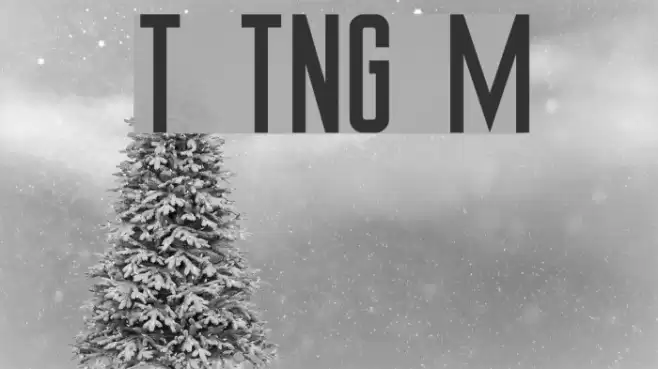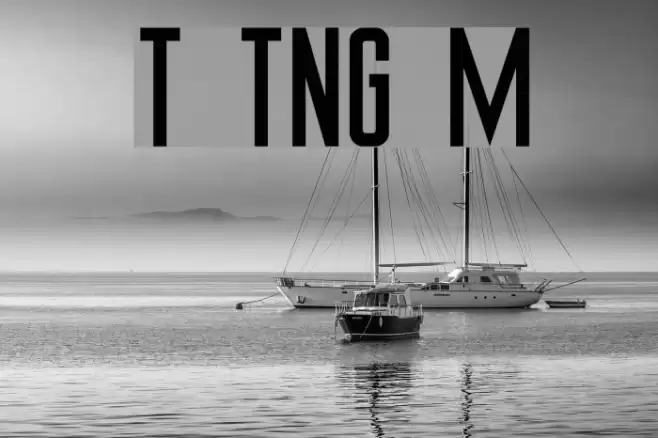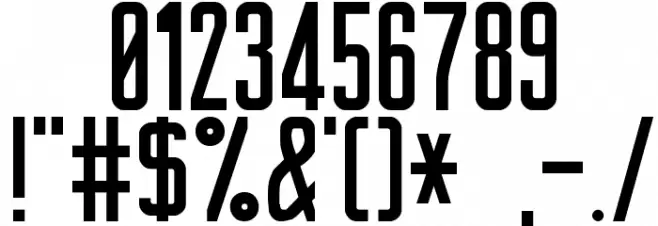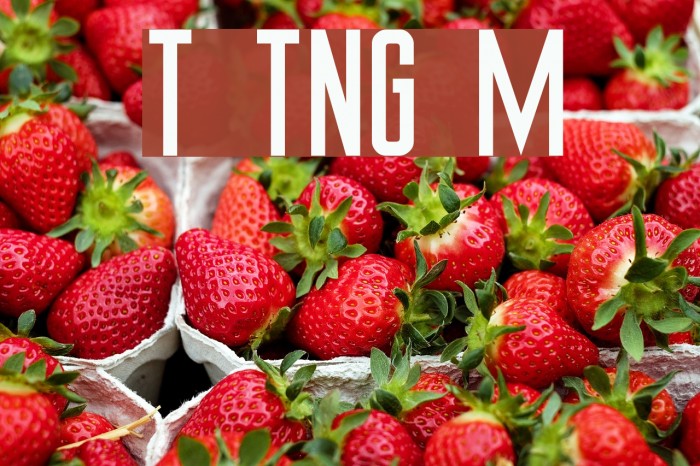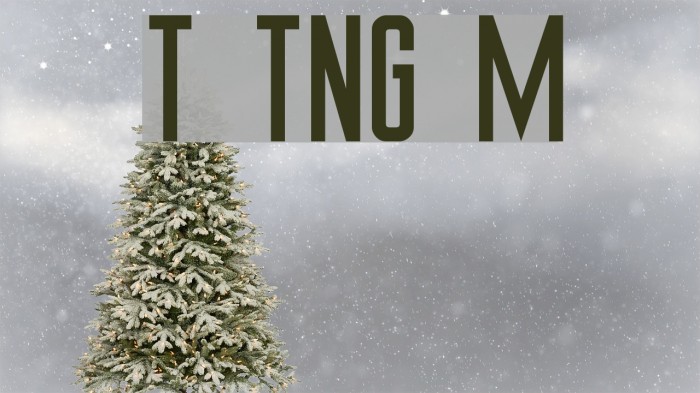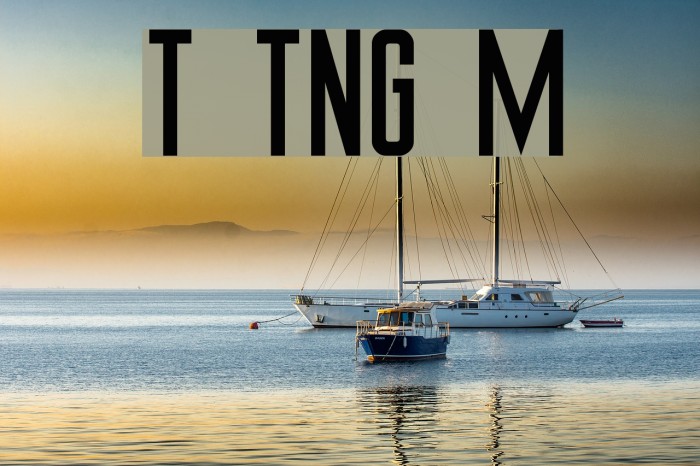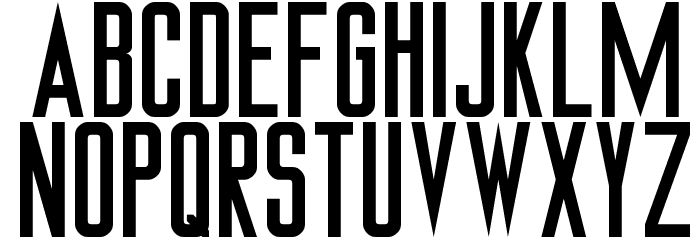
Trek TNG Monitors Font
Trek TNG Monitors Description
This font features a bold and modern design with a strong geometric structure. The characters are tall and narrow, giving it a condensed appearance. The strokes are consistent in thickness, providing a uniform look across all letters and numbers. The uppercase and lowercase letters maintain a similar height, enhancing its sleek and streamlined aesthetic. The font includes a full set of numerals and a variety of special characters, making it versatile for different uses. Its clean and sharp edges contribute to a futuristic and technical feel, ideal for digital displays and interfaces.
A bold, modern, and geometric font with a condensed and uniform appearance from Uncategorized fonts.
- Proposed Projects: Ideal for digital interfaces, sci-fi themed designs, technology branding, and modern advertising.
- Character Spacing: Tight
- Use Case: Headlines, Digital displays, Branding